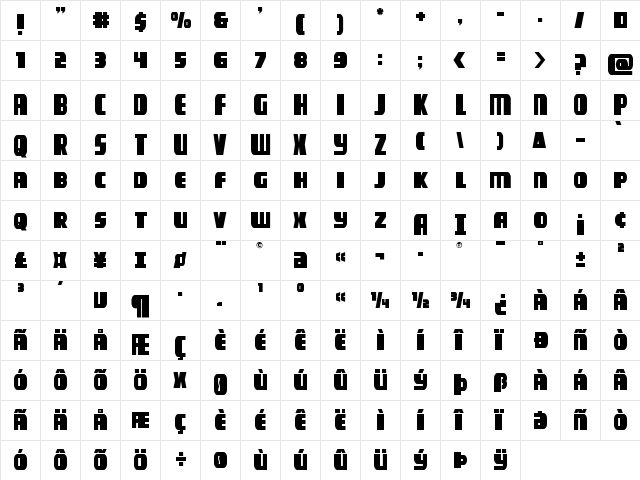
Camp Justice Drop Case Regular Font Preview
Camp Justice Drop Case Regular
Design Context for Camp Justice Drop Case Typeface
Camp Justice Drop Case offers clean, dependable letterforms without strong stylistic allegiance, making it a practical choice for designers who need flexibility.
Pro Tip: Use Camp Justice Drop Case in both headline and body roles to test its range before committing to a single application.